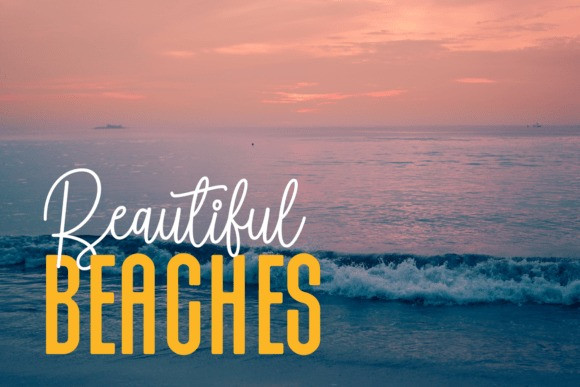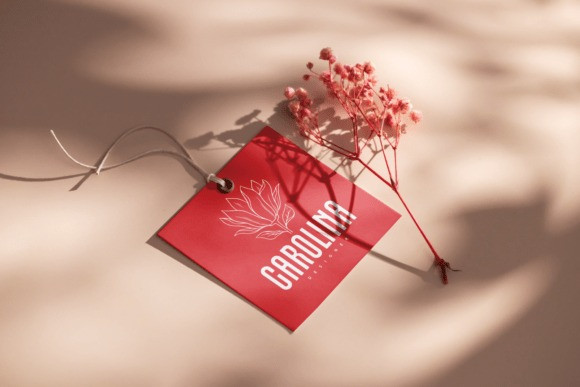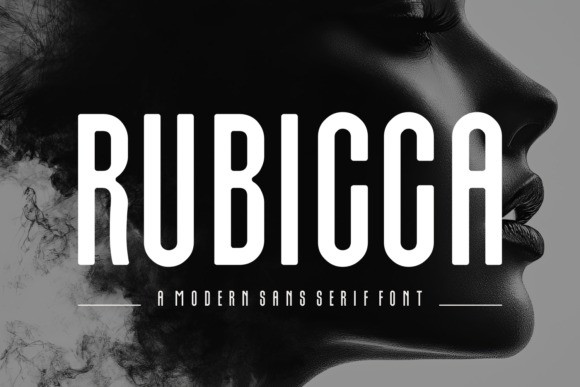
Rubicca Font
Rubicca Font, a premium Sans Serif font that exudes understated elegance, is perfect for coordinating unique brand identities. With an emphasis on authenticity, this versatile font combines simplicity and sophistication, making it an indispensable asset to any apparel design. Its perfection lies in its ability to be both an alternative and a classic, fitting seamlessly into book or magazine covers or adding a fresh, upbeat touch to product packaging. ‘Rubicca’ transcends the ordinary, offering striking roundness that gently envelops each letter, creating a smooth and soothing text. Convey your message, whether it’s a quote or a greeting, with a touch of class. The rounded letter edges of ‘Rubicca’ make it a great choice for seasonal T-shirt prints or signage, embracing trends while maintaining its timeless charm. Featuring multilingual support, including Eastern European languages, ‘Rubicca’ is more than just a font, it’s a versatile design tool. Inspired by the sand-cut letters of wind-swept beaches, ‘Rubicca’ is your passport to creating memorable and impactful designs. So add a little ‘Rubicca’ to your creative projects and watch the magic happen.